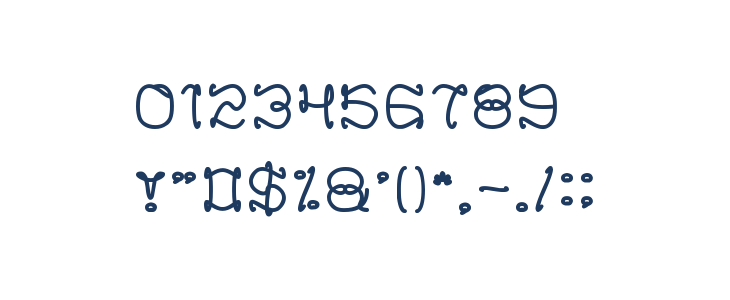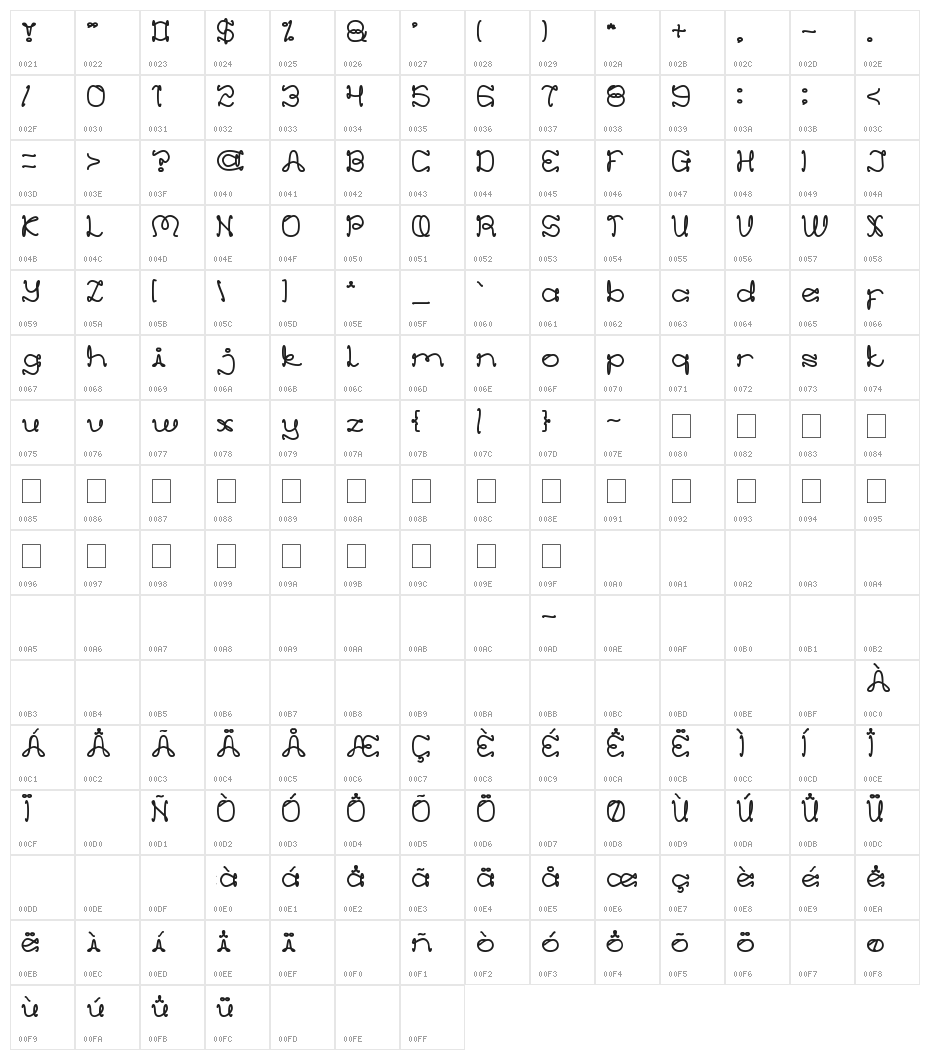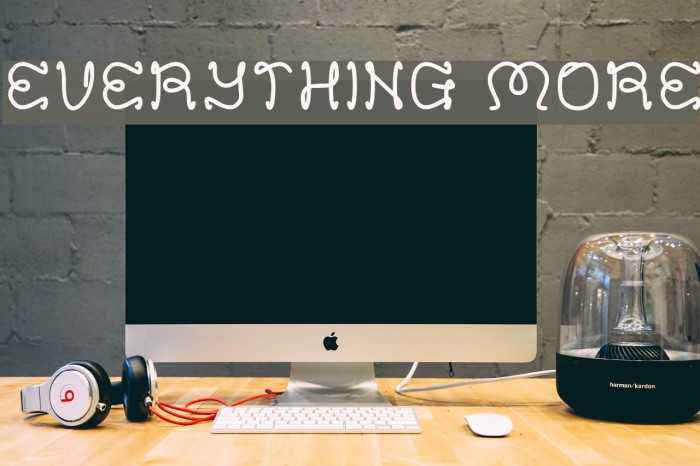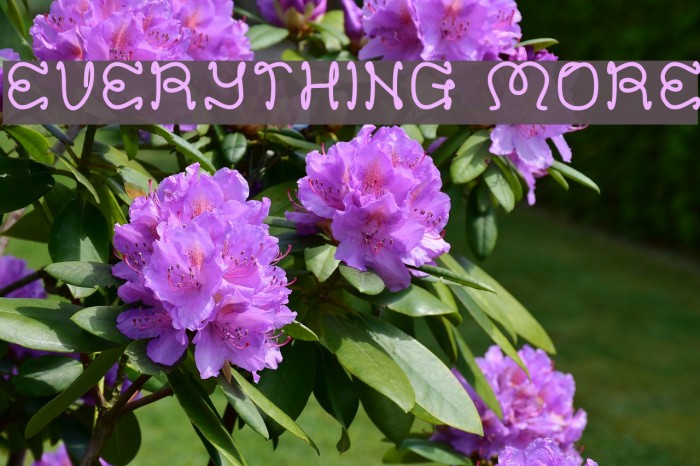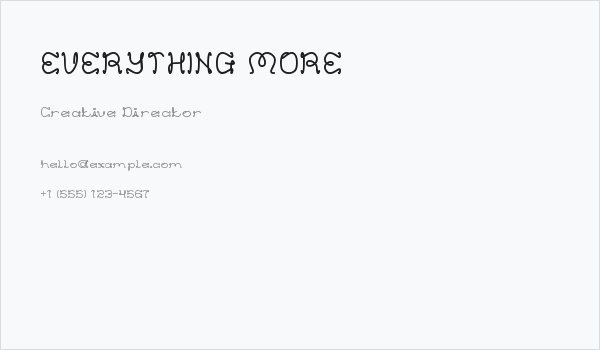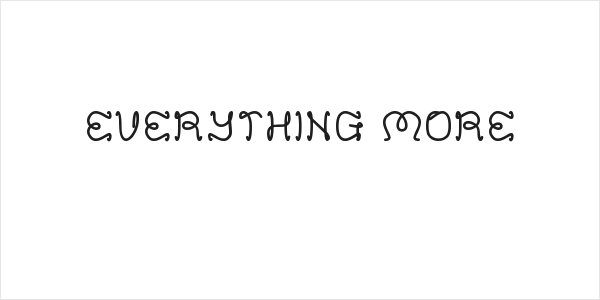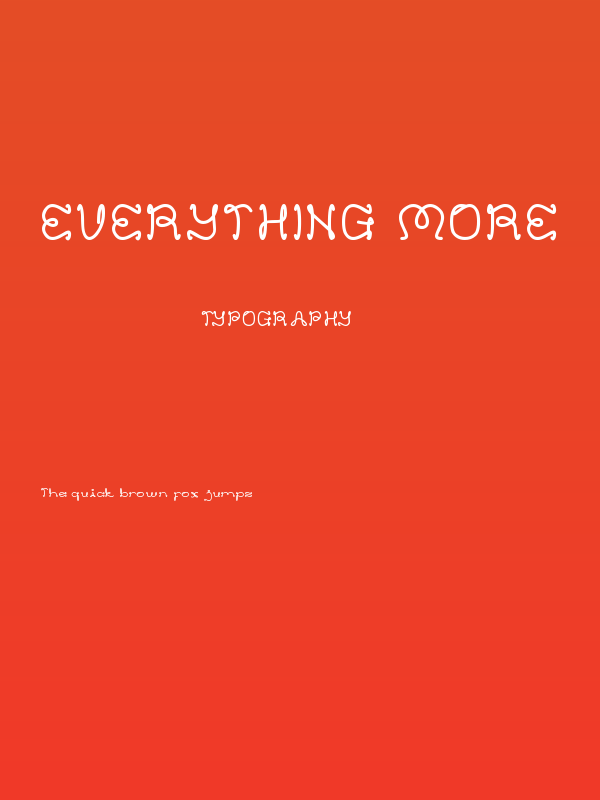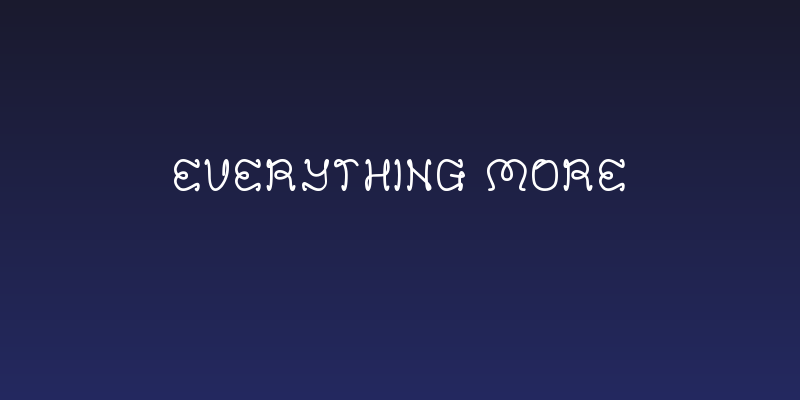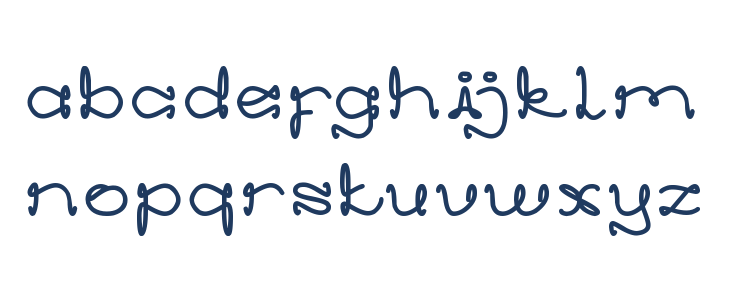
EVERYTHING MORE Font
EVERYTHING MORE Description
This font features a playful and whimsical design, characterized by its unique, looping strokes and rounded forms. The letters are interconnected with a fluid motion, creating a sense of movement and energy. The uppercase and lowercase letters maintain a consistent style, with the lowercase letters mirroring the playful curves of the uppercase. Numbers and special characters follow the same design principles, ensuring a cohesive look across all characters. The font's distinct style makes it stand out, offering a creative and artistic touch to any project.
| Use Case | Headlines, Logos, Creative Projects |
| Proposed Projects | Ideal for children's books, playful branding, creative posters, and artistic invitations. |